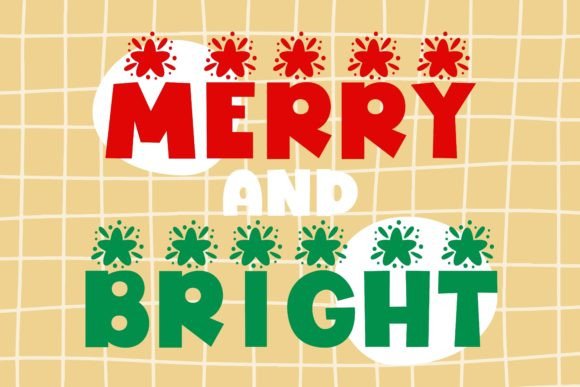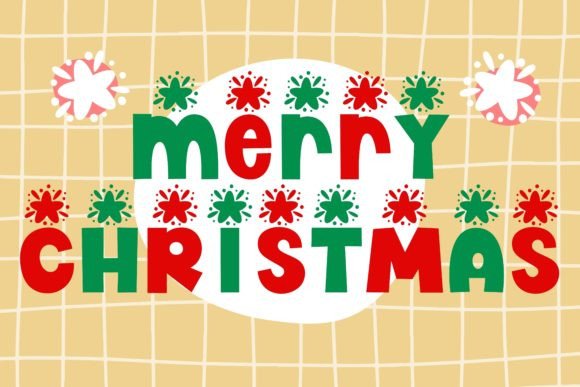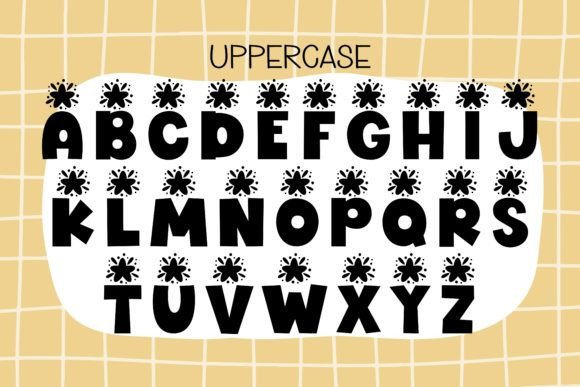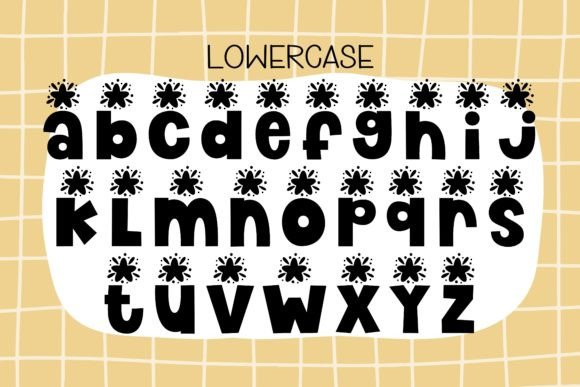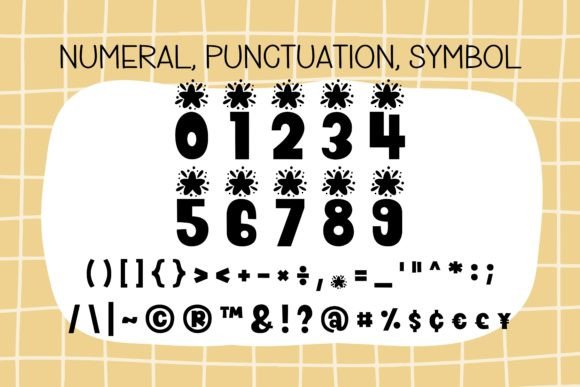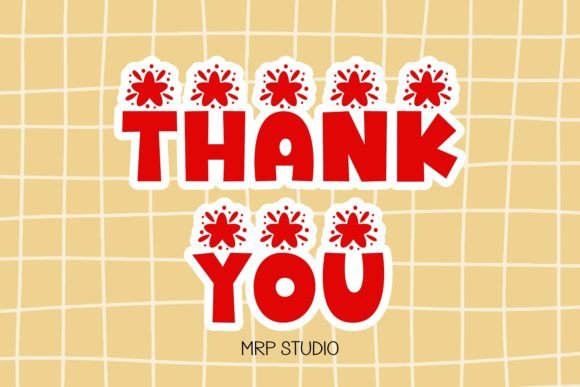
Introduction to Popstar Font
Have you ever stumbled upon a design project where you wished you had the perfect font to add that extra sparkle? I’m sure we’ve all been there – scrolling through our favorite design resources, searching for the perfect font to elevate our creative project. For me, it was the moment I discovered the Popstar Font, and I knew I had found my new go-to design buddy.
Designed in a cute and adorable decorative style, the Popstar Font is the perfect addition to any project that needs a friendly touch. Whether it’s a colorful Christmas project, a back-to-school design, or a party invitation, this font is sure to make your creative ideas stand out. And the best part? It’s available as a free download, making it an accessible design resource for designers of all levels.
With its high-quality design and transparent background, the Popstar Font is a valuable addition to any designer’s toolkit. So why not give it a try and see how it can elevate your next creative project?
Key Features of Popstar Font
- High-quality design resource with a unique, eye-catching style perfect for creative projects.
- Transparent background option allows for seamless integration into any design, giving you complete creative control.
- Available in multiple sizes, ranging from 12pt to 72pt, making it suitable for various design applications.
- High-resolution design ensures crisp and clear text, even when enlarged or used in large formats.
- Designed specifically for use in digital media, including websites, social media, and graphic design projects.
Honest Review: Popstar Font
I recently came across the Popstar Font, and I must say, it’s a great addition to any designer’s toolkit. This font is perfect for creating a bold and eye-catching visual identity for your creative project.
What Works Well:✨
- High-quality design: The Popstar Font boasts a unique and stylish aesthetic that’s sure to make your project stand out.
- Transparent background: This feature allows for seamless integration with any design element, giving you complete creative freedom.
Limitations:⚠️
- Limited versatility: While the font is perfect for certain design projects, it may not be suitable for more formal or professional settings.
- Dependence on surrounding design: The font’s effectiveness relies heavily on the surrounding design elements, which can be a challenge to get right.
Overall, I’m impressed with the Popstar Font’s potential as a design resource. While it may have its limitations, it’s definitely a great choice for those looking to add a touch of creativity to their projects.
Tips for Getting the Most Out of Popstar Font
With a transparent background, Popstar Font is perfect for creating eye-catching designs. To get the most out of it, use it in conjunction with other high-quality design resources and experiment with different font sizes and colors.
Popstar Font is ideal for creating designs for music festivals, concerts, and other music-related events. It’s also perfect for creating graphics for social media, flyers, and posters.
Alternatives to Popstar Font
Comic Sans MS is a classic sans-serif font that is often used for informal and playful designs. It is a good choice for creative projects that require a friendly and approachable tone. Unlike Popstar Font, Comic Sans MS has a more rounded and childlike appearance, making it suitable for family-friendly and educational materials. It is a free download and can be used on both Windows and Mac operating systems.
Pacifico is a beautiful and elegant script font that is perfect for creative projects that require a touch of sophistication. It is a high-quality font that can be used for various design purposes, including logos, headings, and body text. Compared to Popstar Font, Pacifico has a more refined and luxurious appearance, making it suitable for high-end branding and marketing materials. It is available for free download and can be used on both Windows and Mac operating systems.